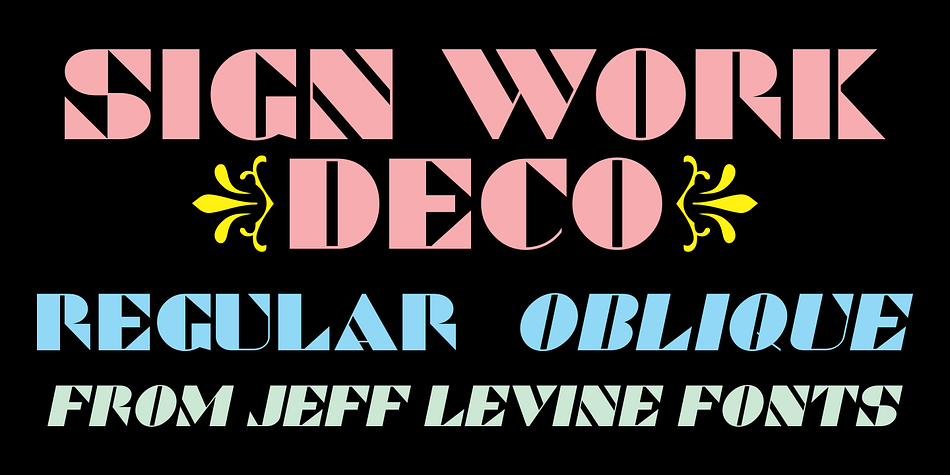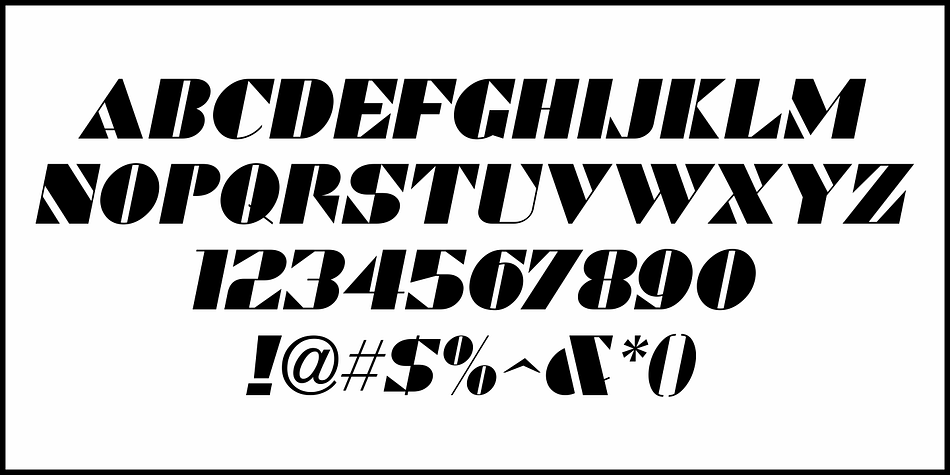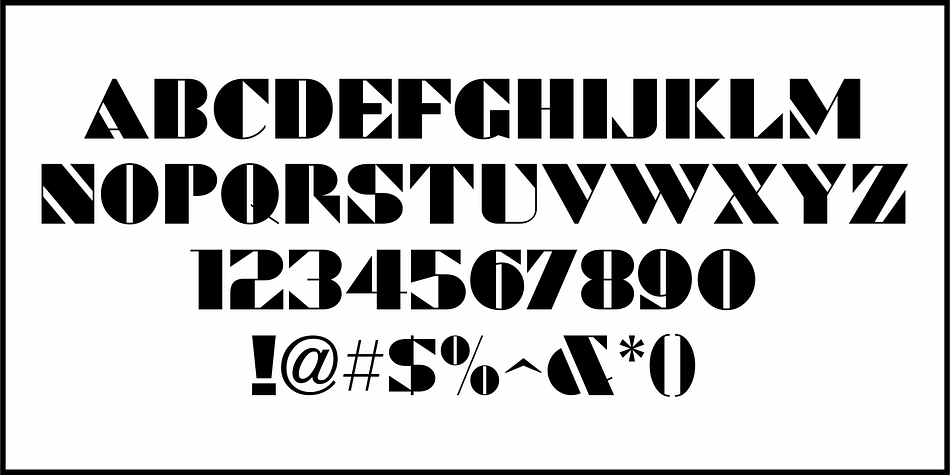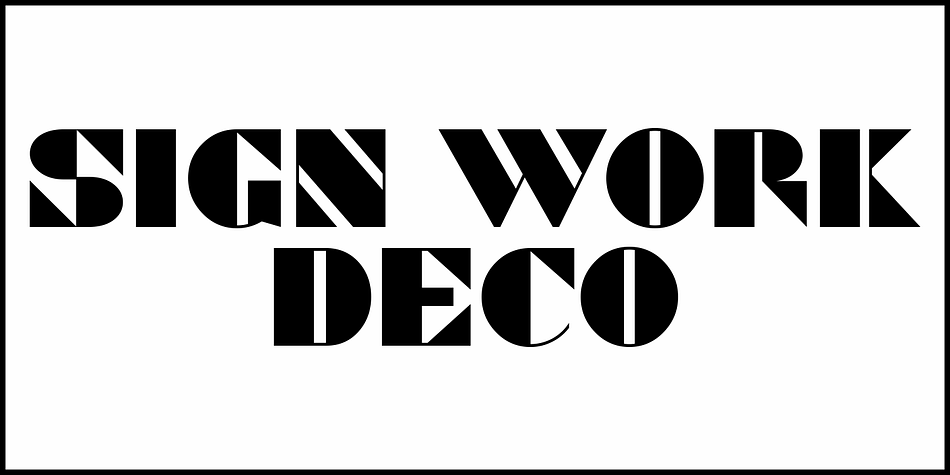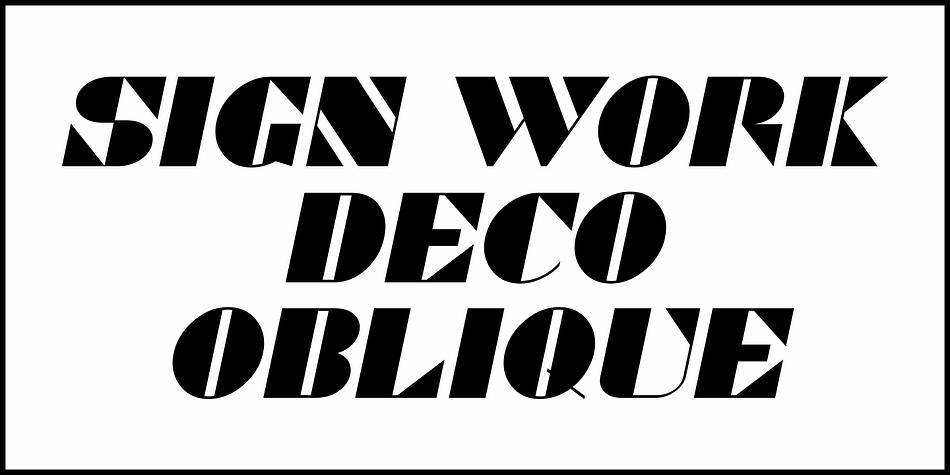
SIGN WORK DECO JNL
Designed by Jeff Levine, Sign Work Deco JNL is an art deco and display sans font family. This typeface has two styles and was published by Jeff Levine Fonts.
The prolific hand lettering of Samuel Welo is showcased in his “Studio Handbook for Artists and Advertisers” (published in both 1927 and 1960).
A thick and thin Art Deco design in the 1960 edition – somewhat reminiscent of Futura Black (but with significant differences) is now available as Sign Work Deco JNL in both regular and oblique versions.